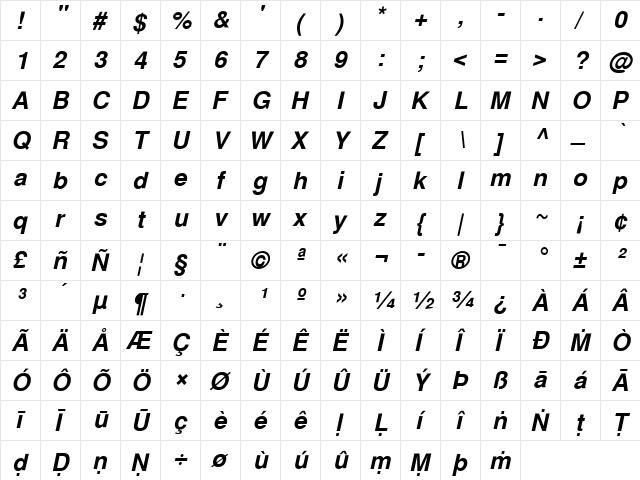
Pali Helvetica Regular
Design Context for Pali Helvetica Typeface
Pali Helvetica offers clean, dependable letterforms without strong stylistic allegiance, making it a practical choice for designers who need flexibility.
Pro Tip: Use Pali Helvetica in both headline and body roles to test its range before committing to a single application.